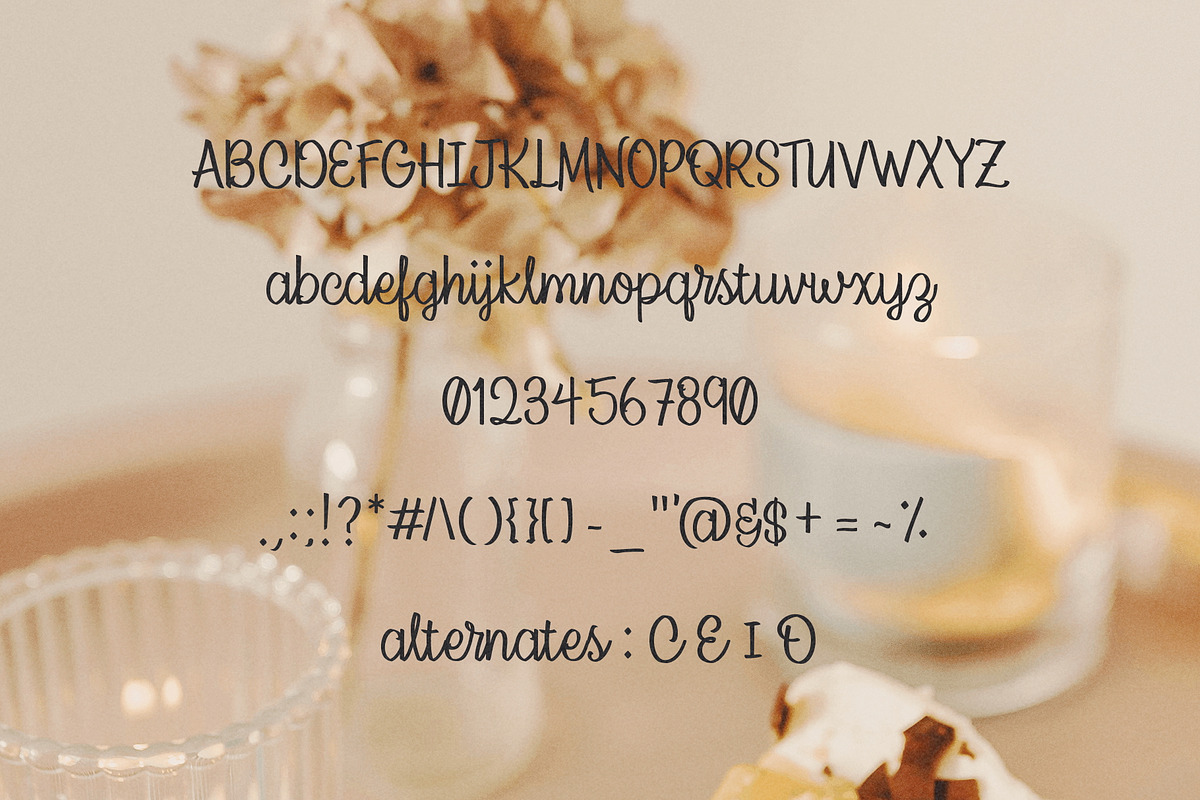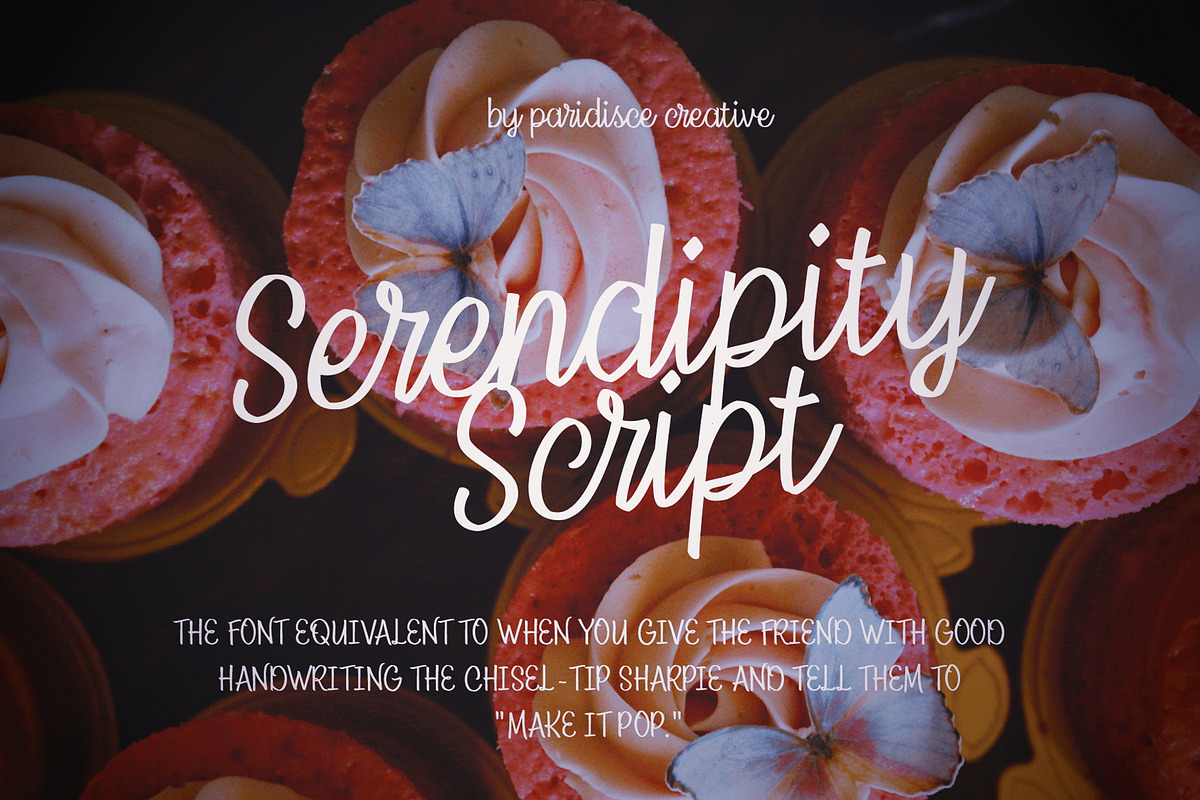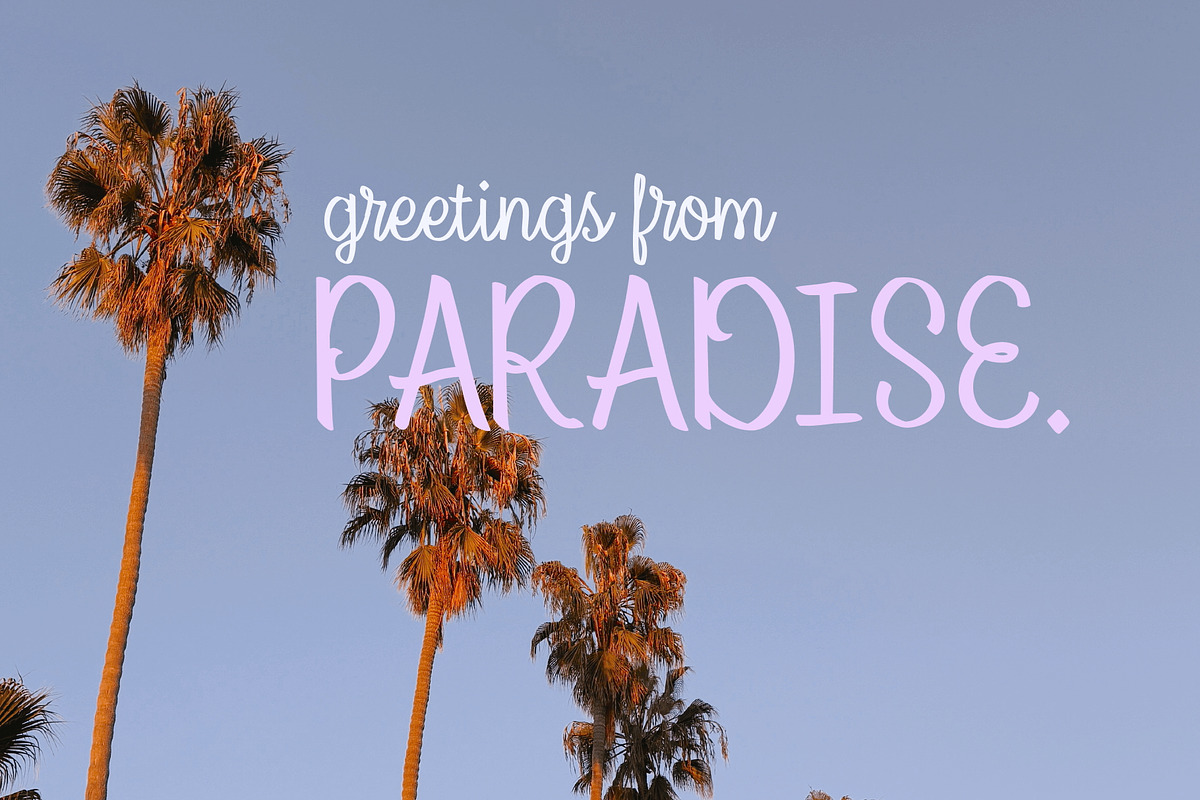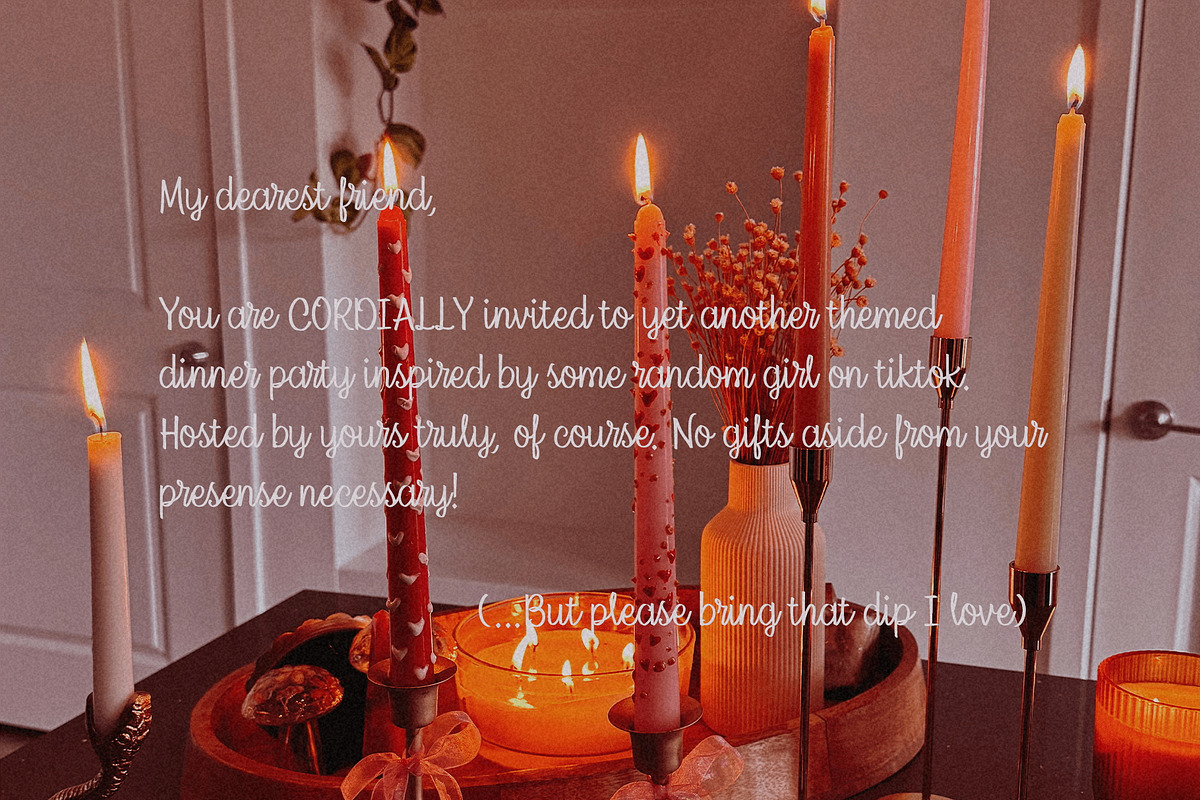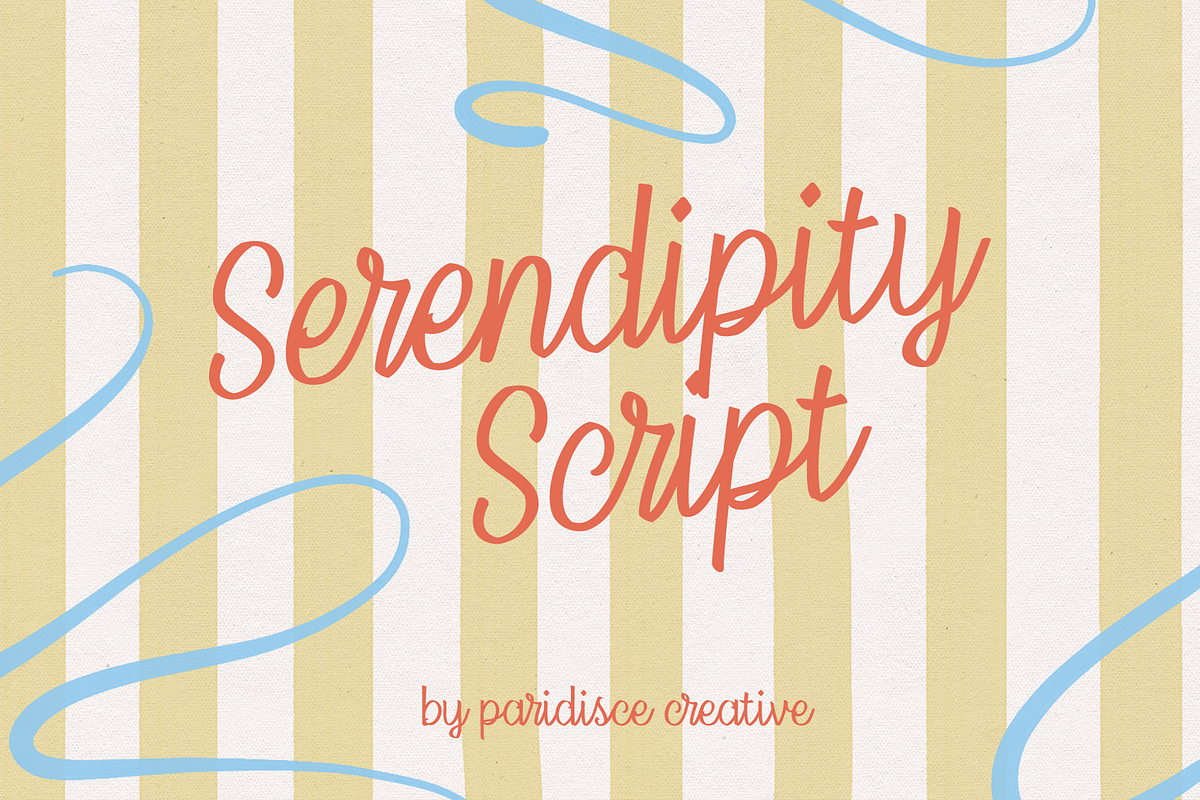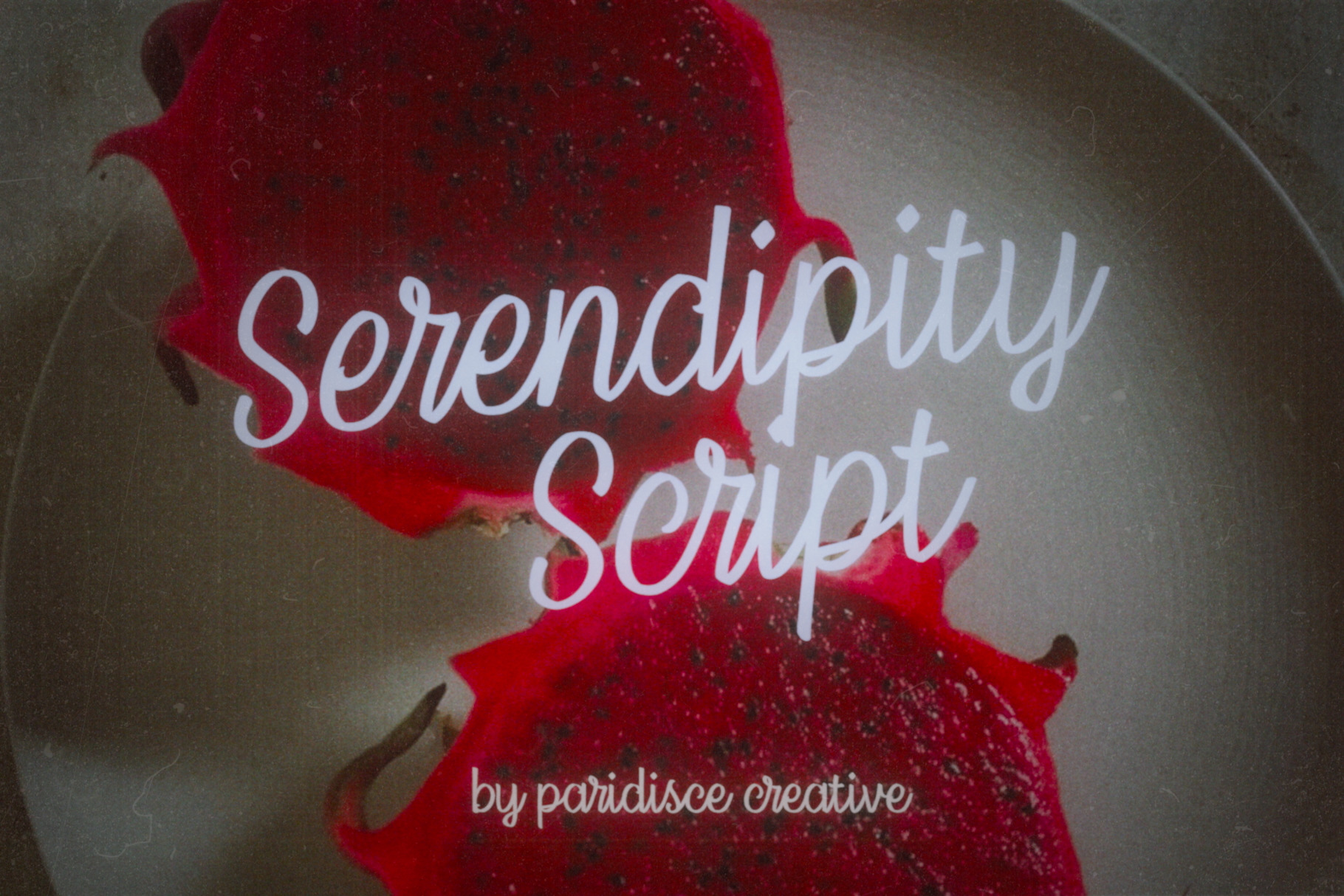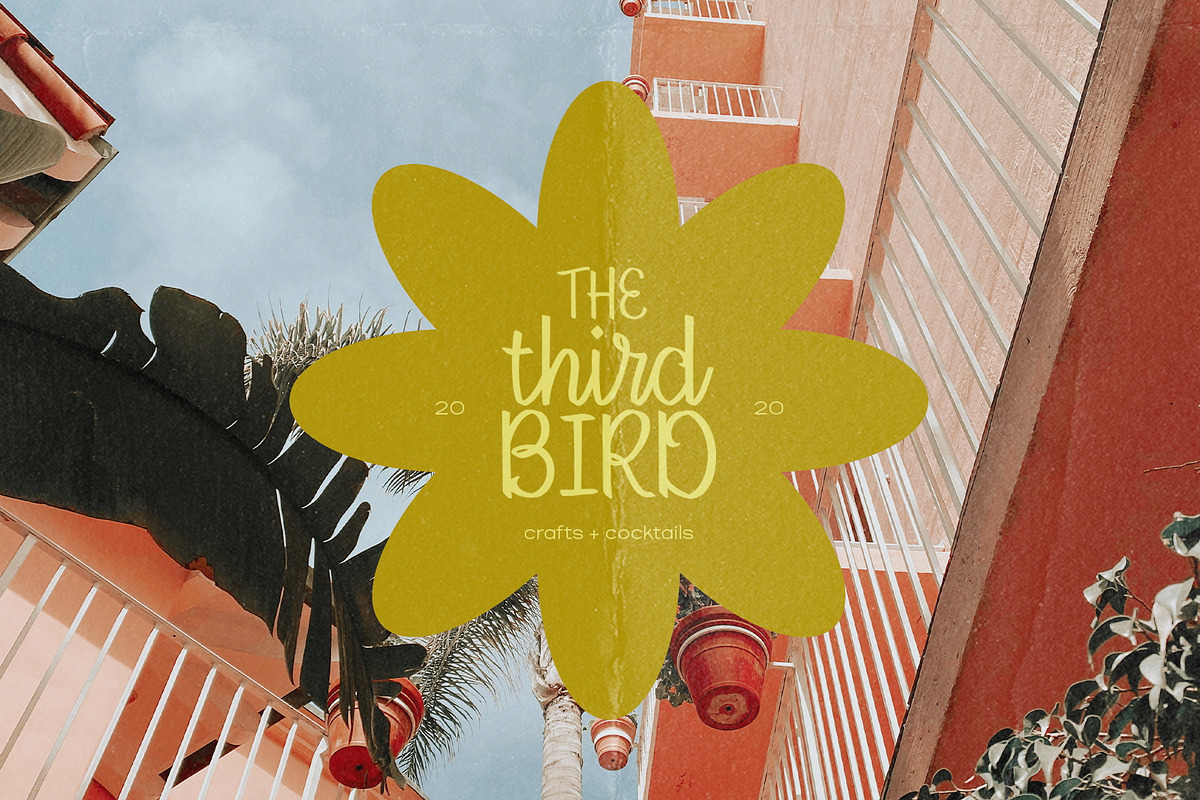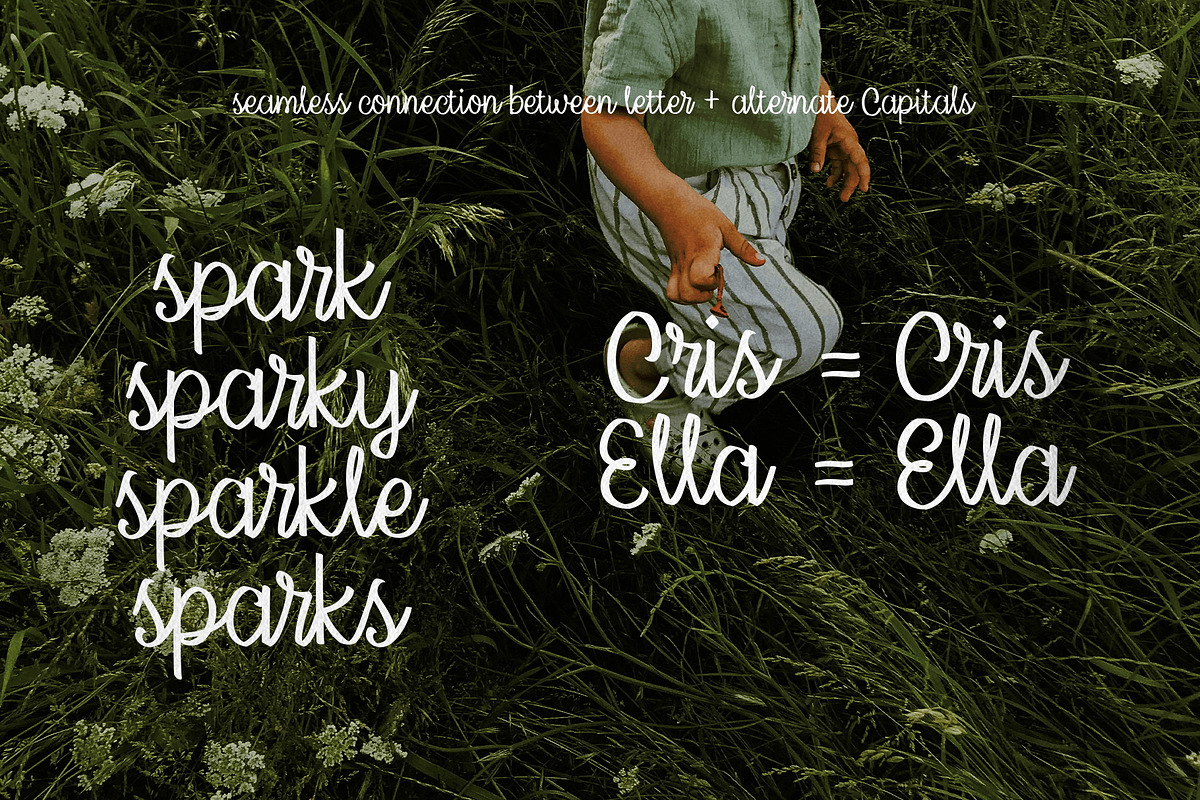
Serendipity Script Calligraphy Font
She’s elegant, but playful. She’s romantic, but cheeky. She's kinda down for whatever, ya know? I meticulously designed this playful, modern, yet classy font for my own personal brand based off of a daydream; what would a font made from ribbon look like? So barbiecore vibes meets a chisel-tip sharpie and the rest was history.
Serendipity Script features:
- 95 glyphs, pictured in gallery.
- All lowercase letters blend seamlessly, so try not to adjust distance between letters.